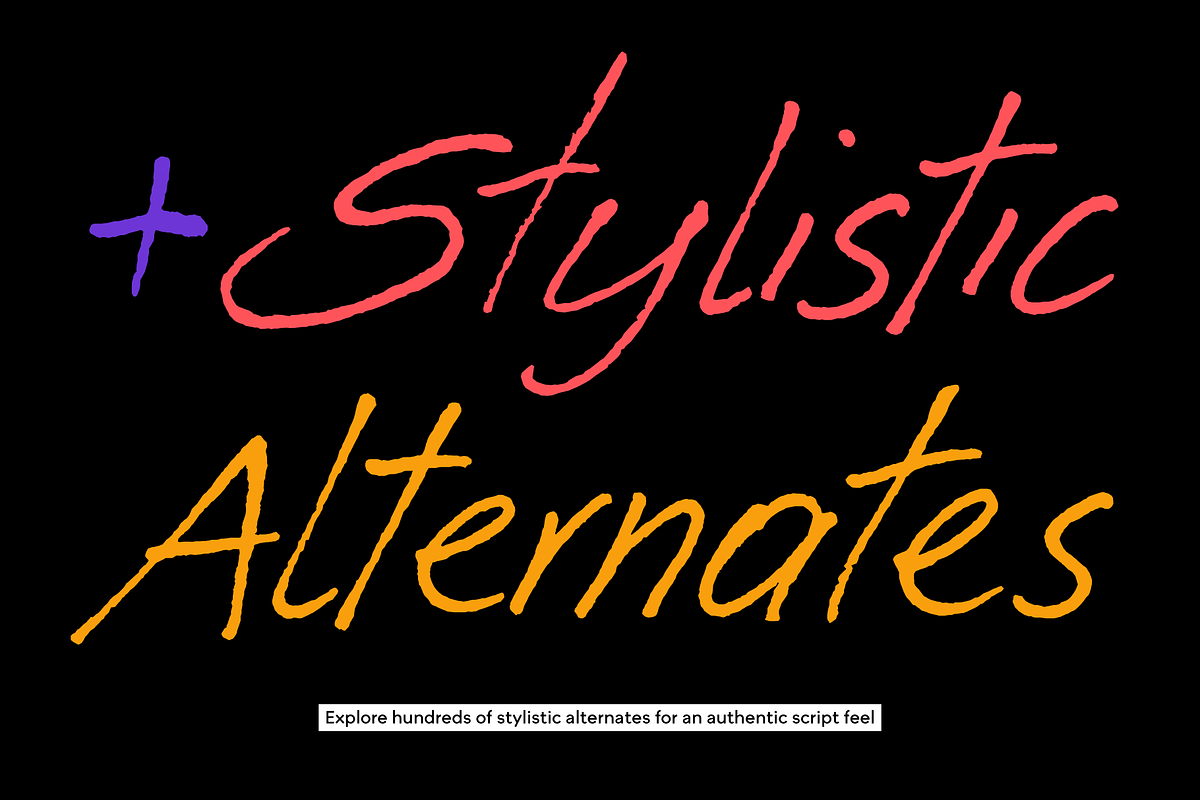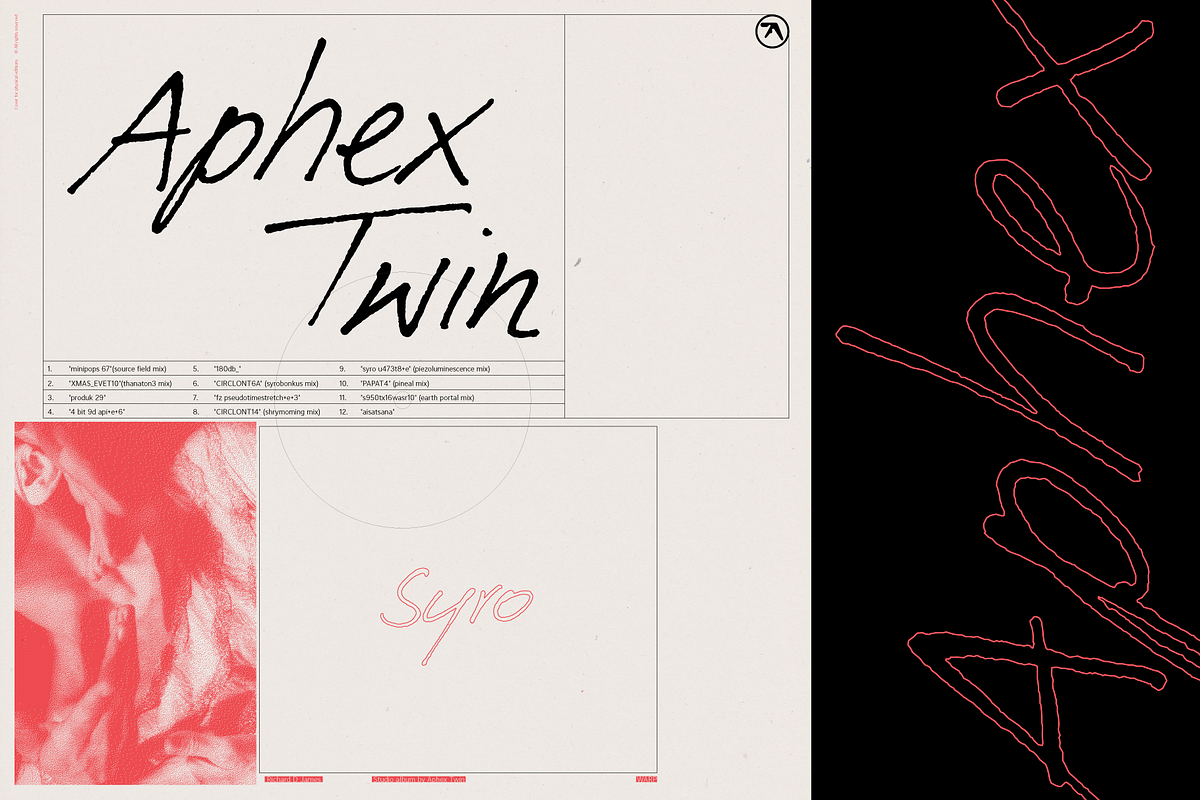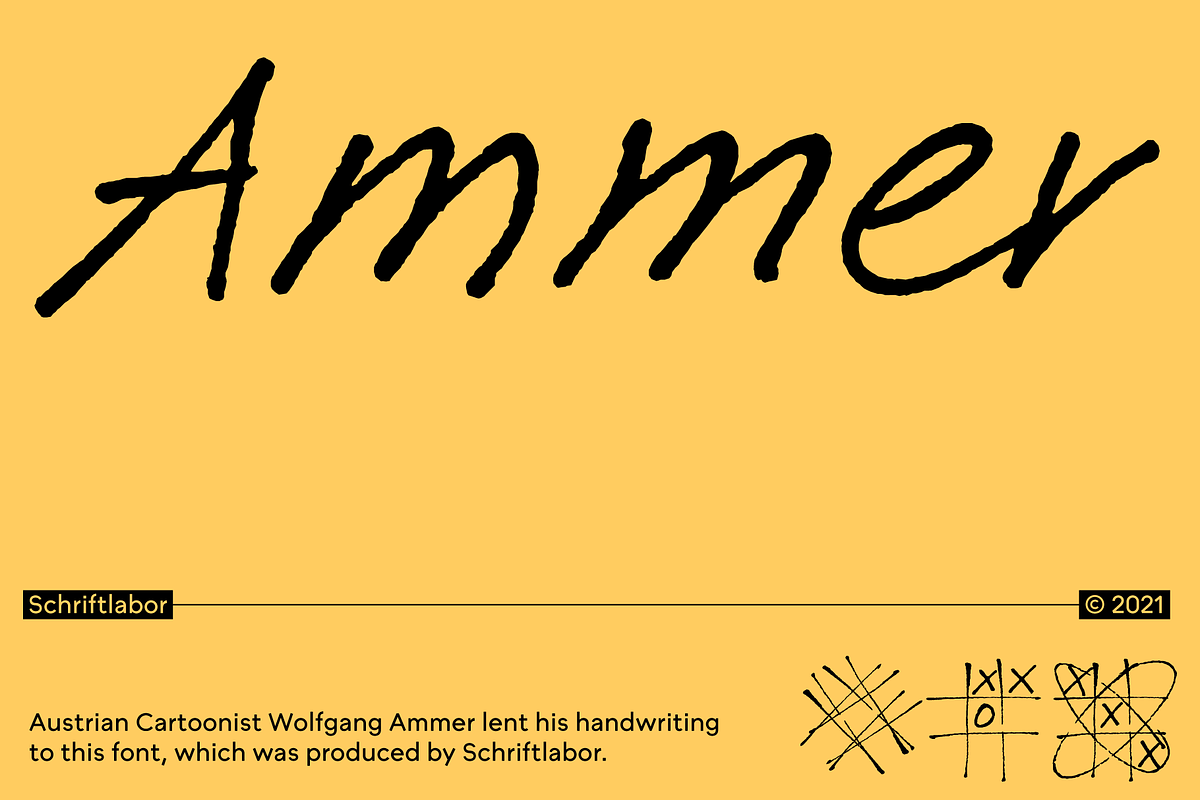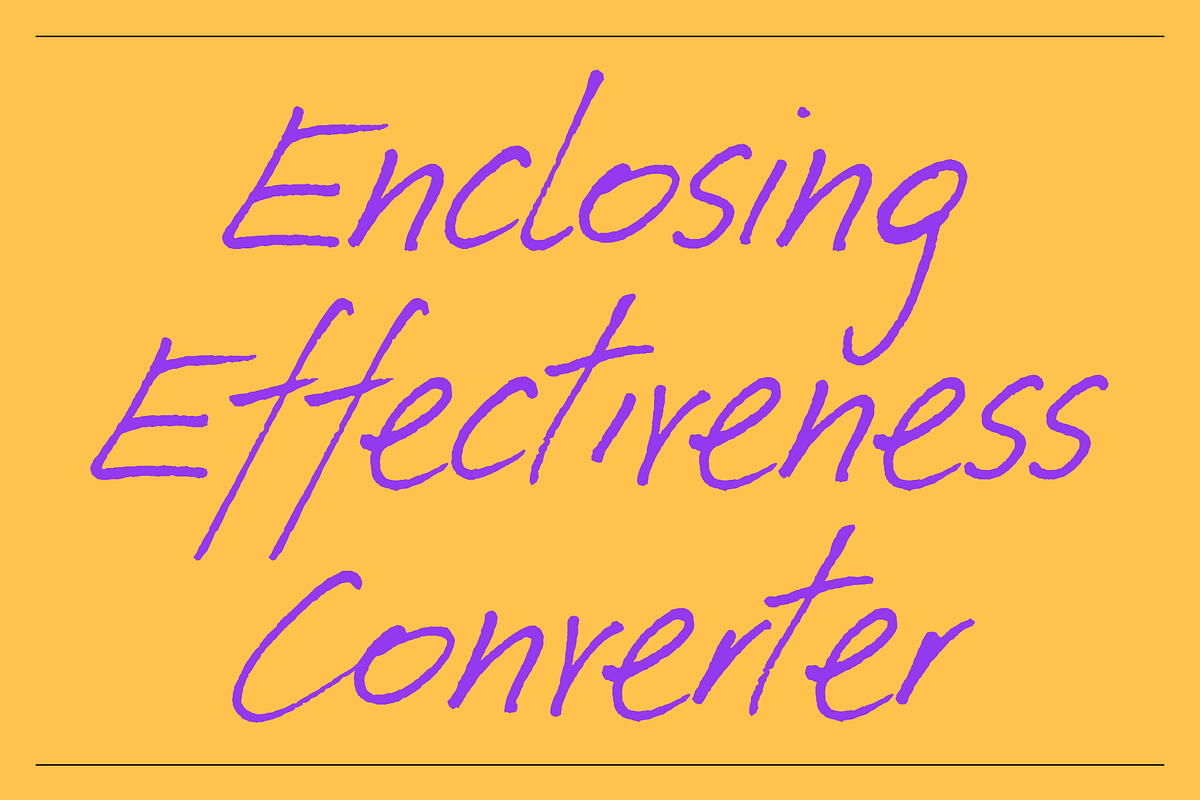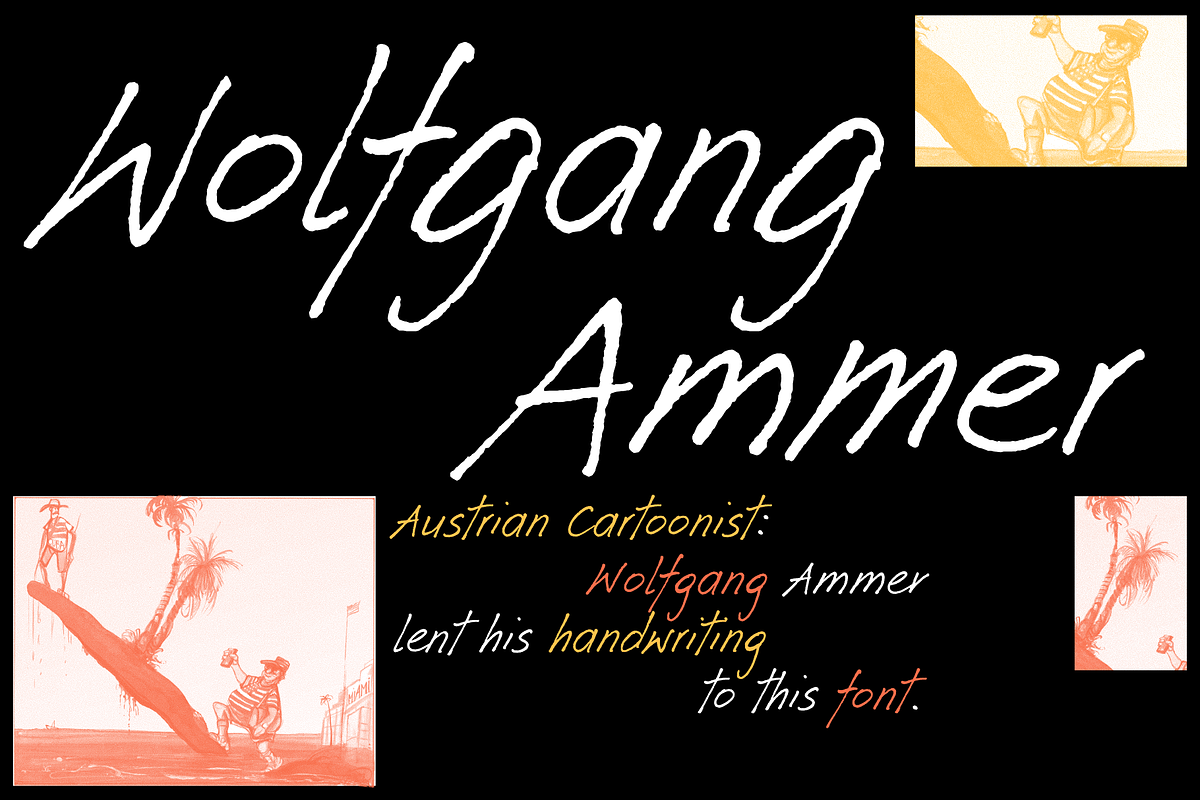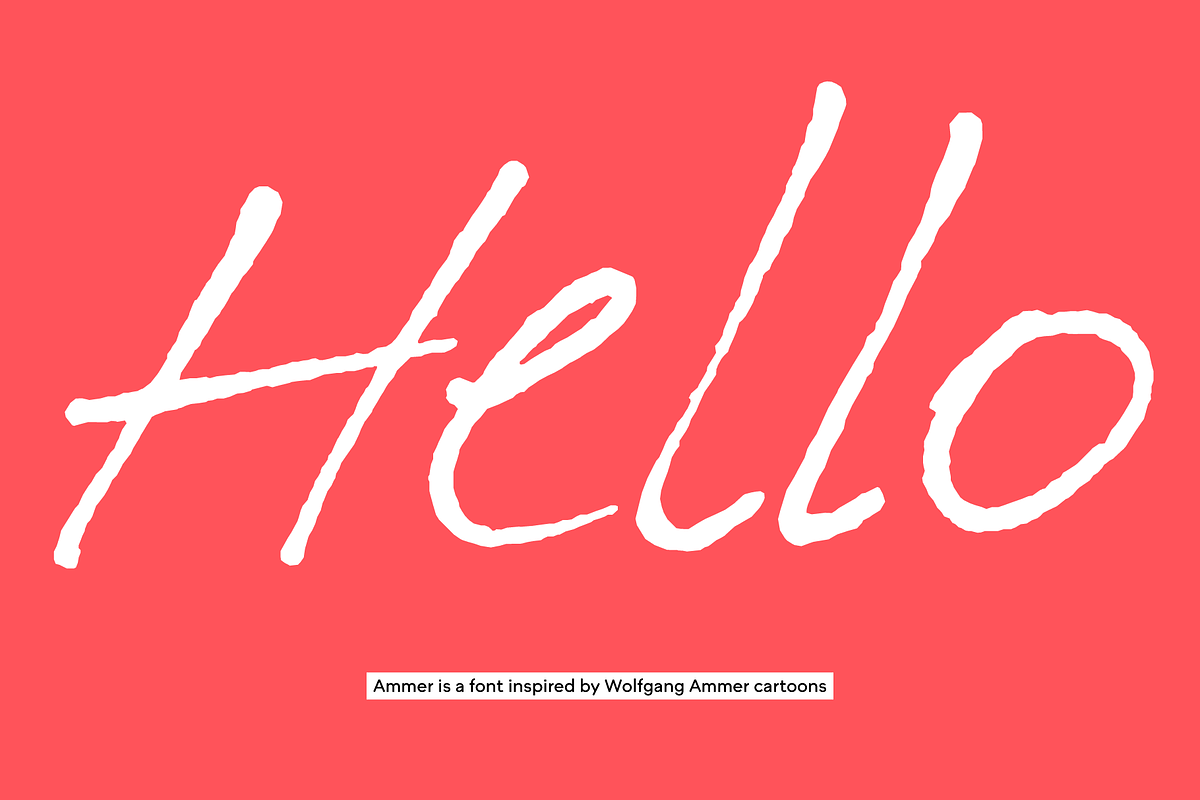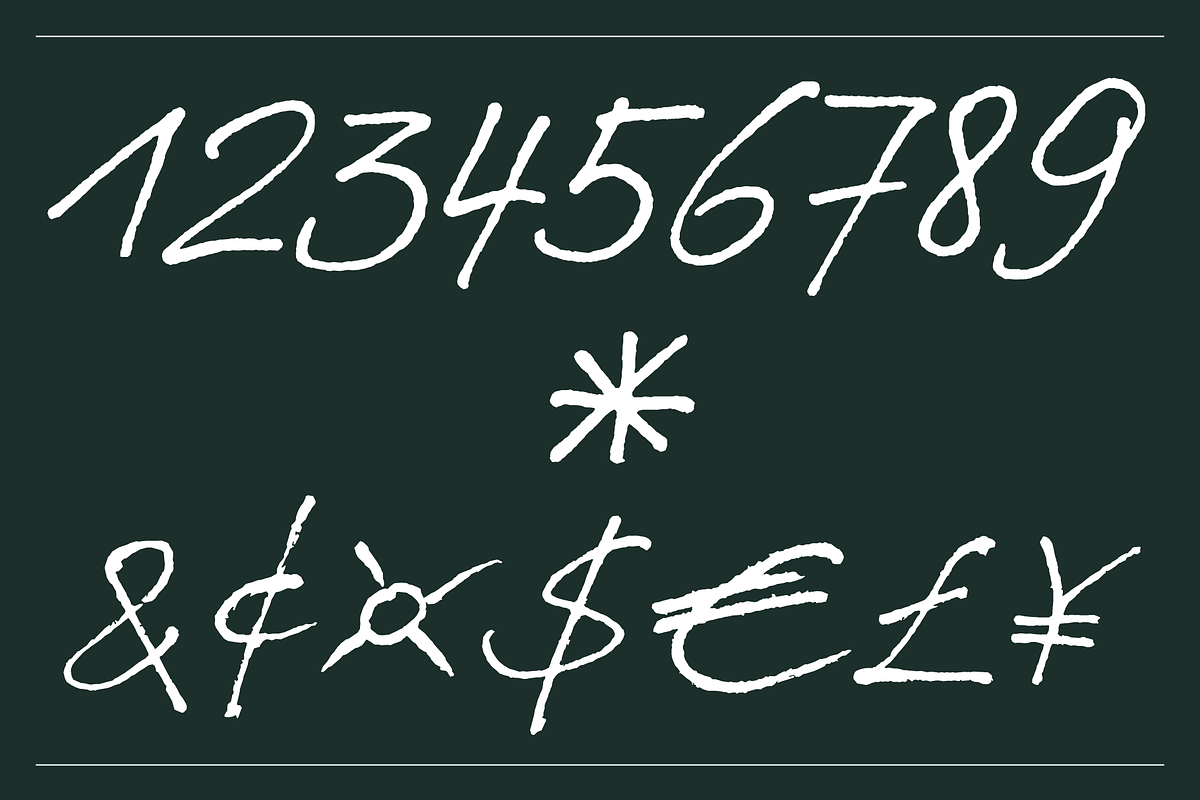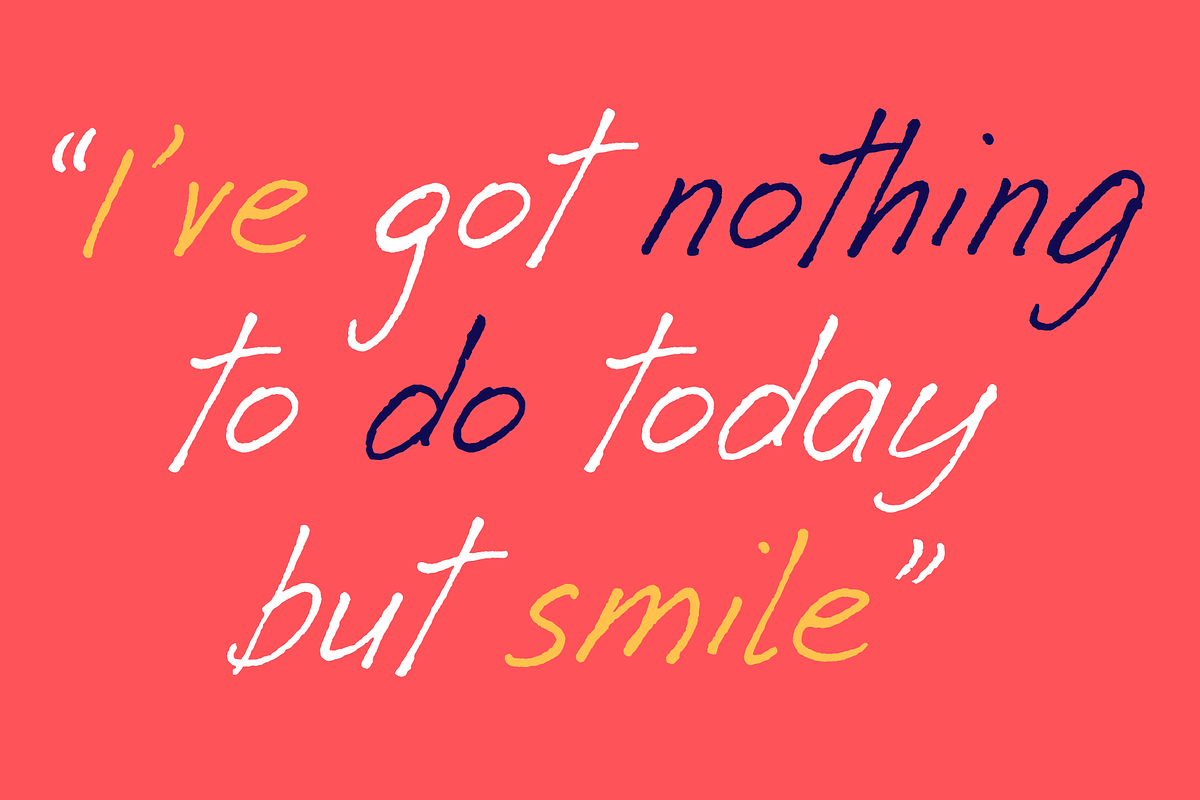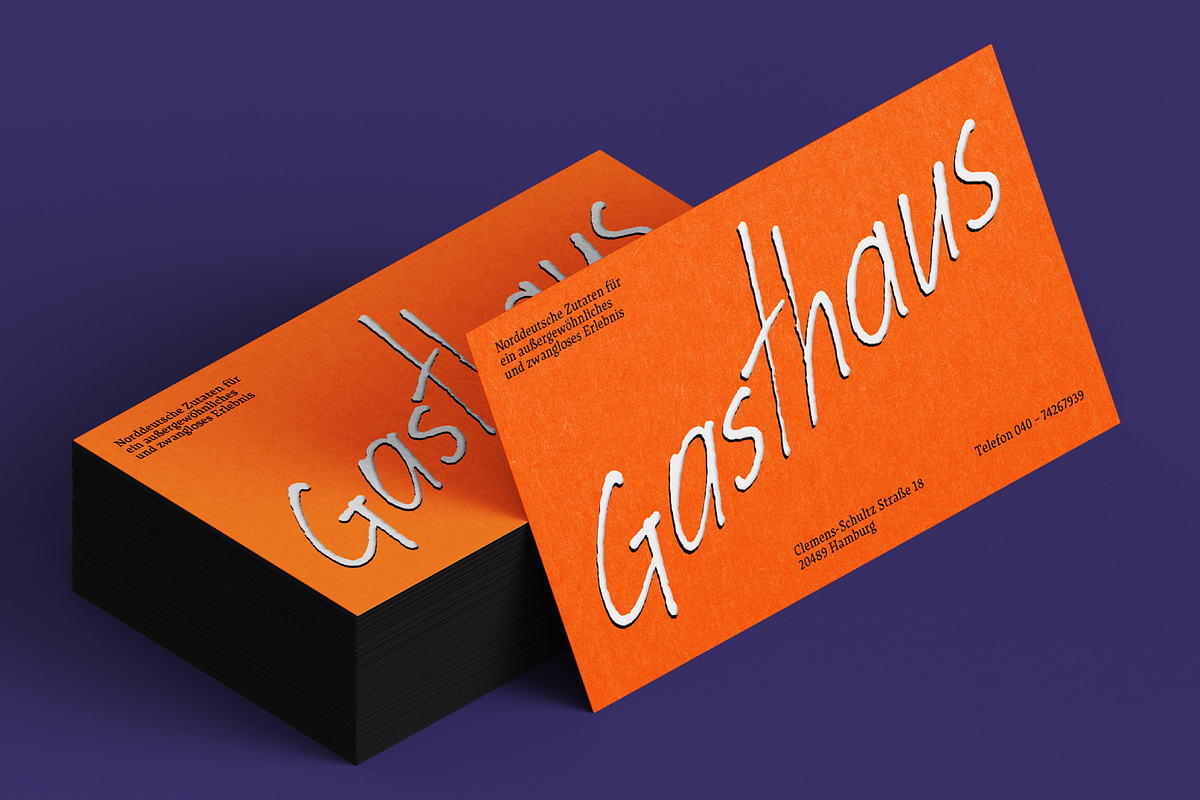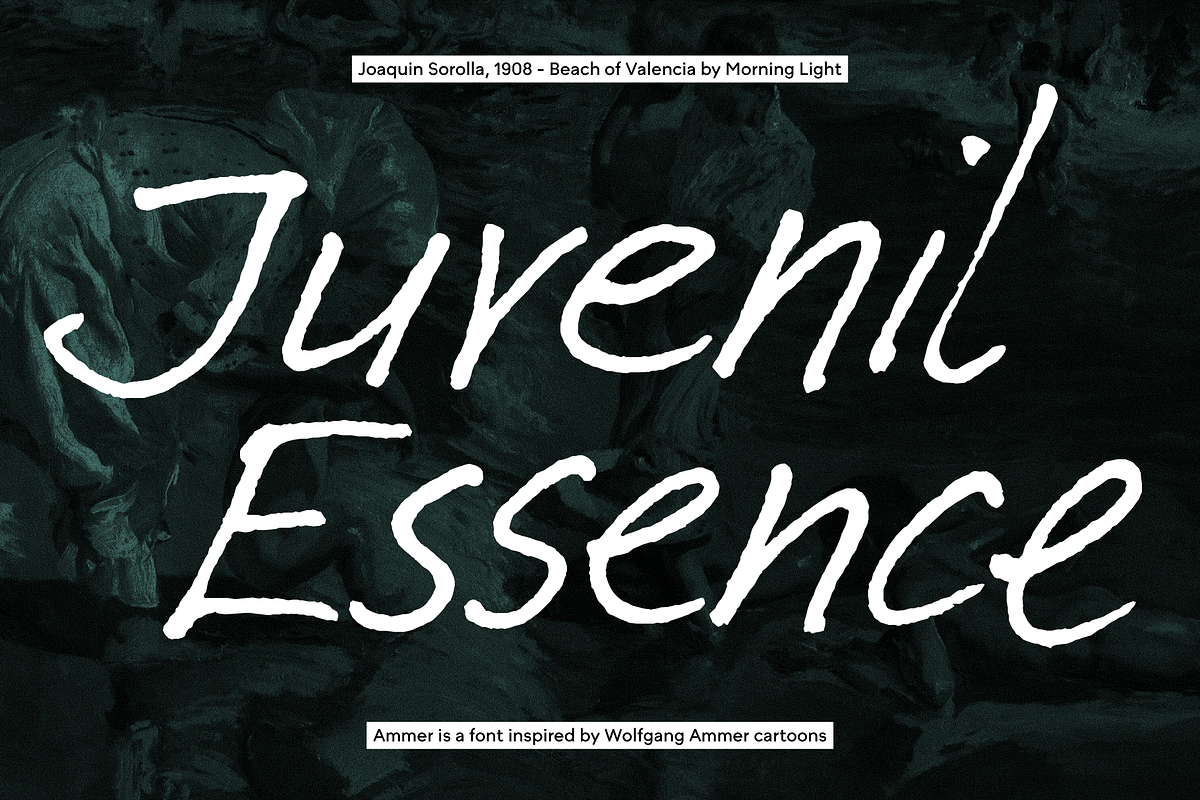
Ammer Handwriting
Austrian Cartoonist Wolfgang Ammer lent his handwriting to create this font produced by the team at Schriftlabor. Wolfgang uses the font in his daily routine: It facilitates corrections and translations of his cartoons for international newspapers. It is a script typeface that includes rich in contextual alternates. Ammer contains about 1800 glyphs, and each character has multiple alternative shapes. We wrote a complex OpenType substitution feature that makes sure that the same variant does not appear twice in a line. It has a lot of character and shows a fast and spontaneous feeling to it.